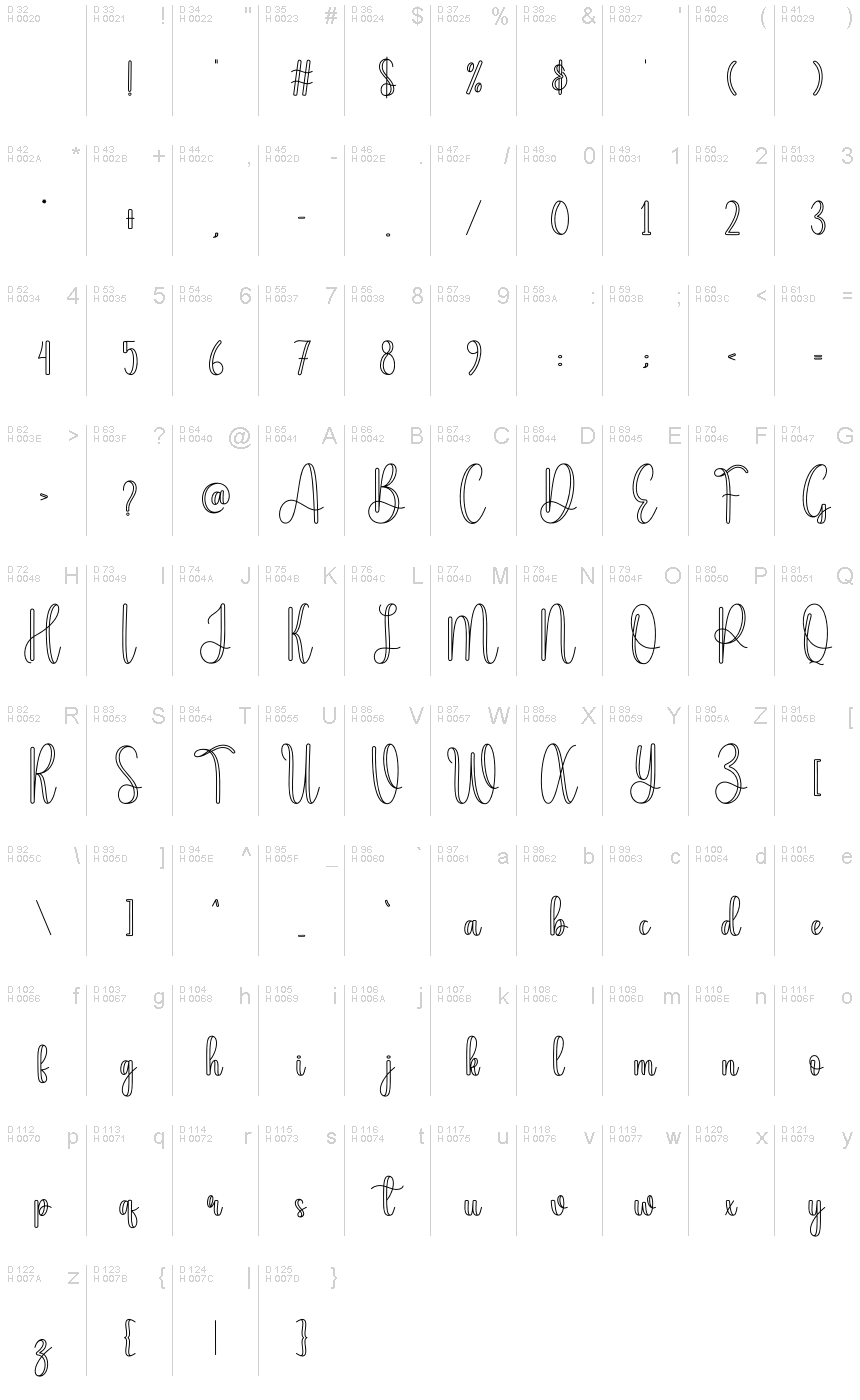
Disability
Disability font, designed by Scratchones, exudes a captivating calligraphic style that seamlessly blends elegance with a modern touch. Its graceful curves and fluid lines create an inviting and dynamic visual experience, making it both playful and sophisticated.
The condensed form of the letters adds an element of charm, allowing for easy readability while maintaining a unique aesthetic. This font stands out with its striking character shapes that convey creativity and warmth.
Ideal for branding, invitations, or any project seeking to evoke emotion and connection, the Disability font perfectly captures attention while communicating messages in a heartfelt manner. Embrace its distinctive flair to enhance your design endeavors with personality and style.